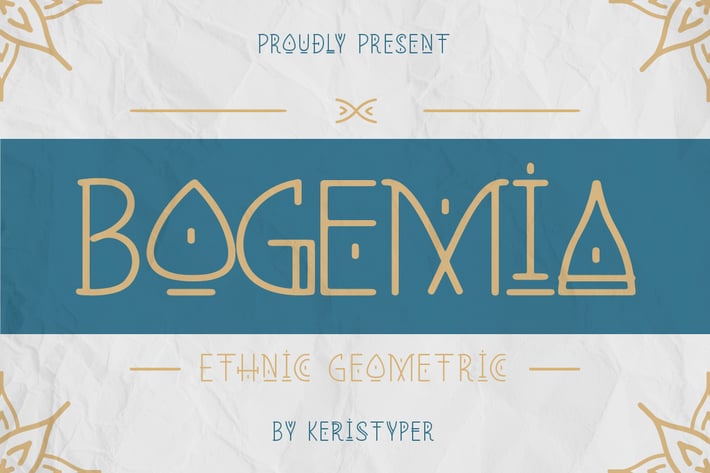
Bogemia Font
Proudly introduce our new font Bogemian decorated with geometric elements inspired by the Boho style. This font is good for logo design, Social media, Movie Titles, Books Titles, short text even long text letters, and good for your secondary text font with sans or serif.
Featured:
Standard Uppercase & Lowercase
Multilingual : ä ö ü Ä Ö Ü ß ¿ ¡
Alternate & Ligature